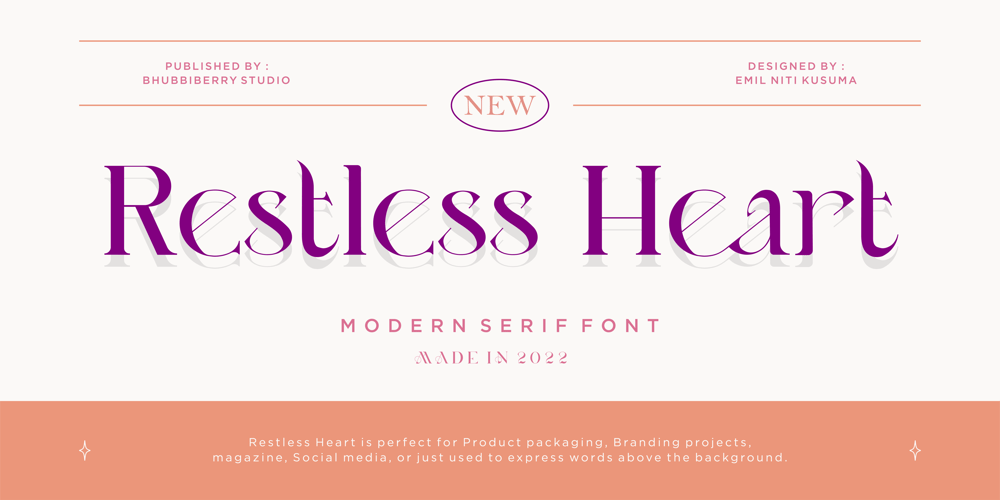
Restless Heart Font Family was designed by Emil Niti Kusuma and published by Bhubbiberry Studio. Restless Heart contains 1 styles and family package options. Restless Heart is serif font features a mixed modern-classic design inspired by the Art Nouveau era. Restless Heart support multilingual languages, numbers, punctuation and alternative-ligatures.Create gorgeous & beautiful logotype, use it as an elegant solution for your next magazine layout, or choose Restless Heart for any graphics that require a catchy look with a elegant flair.Warm regards.